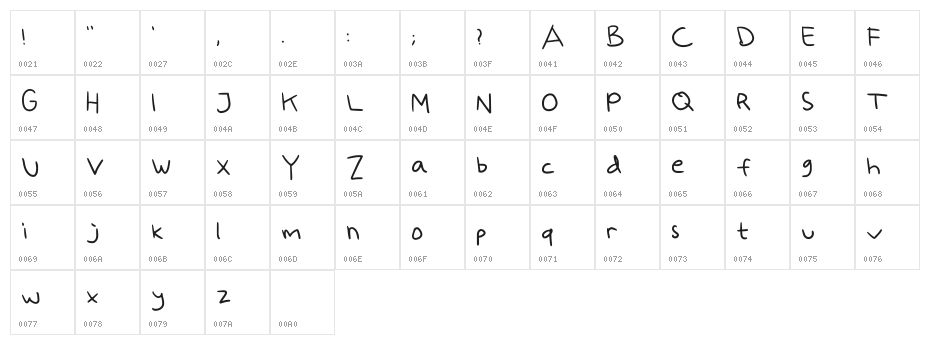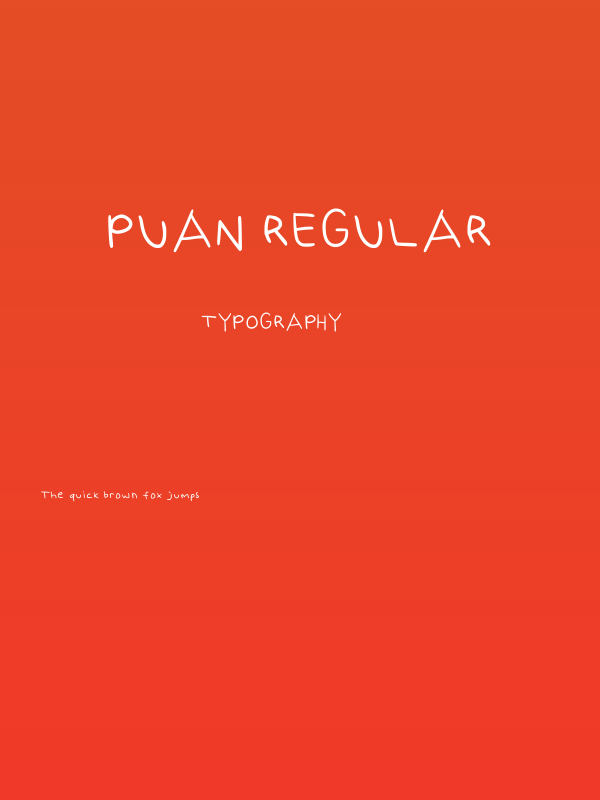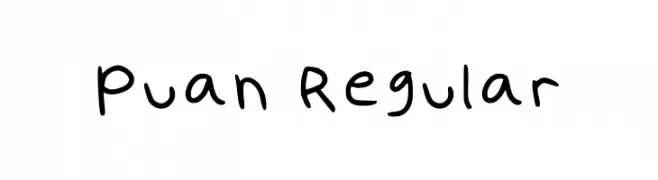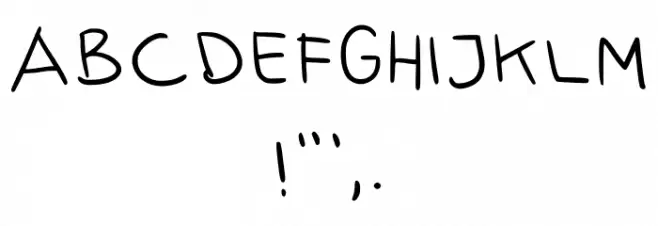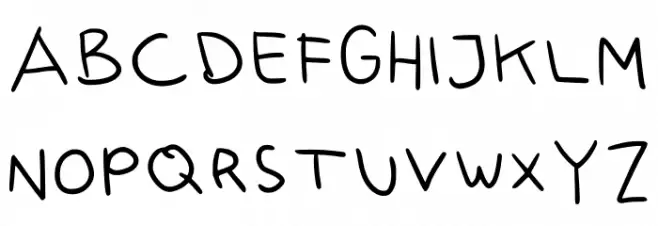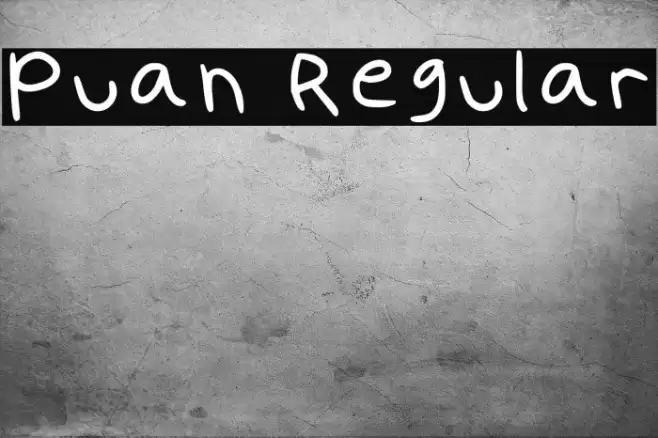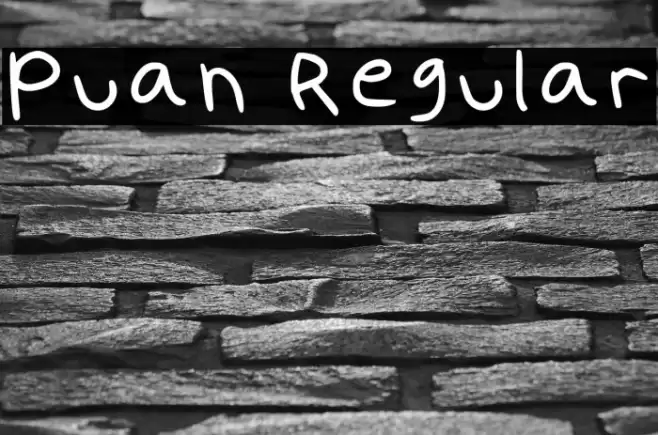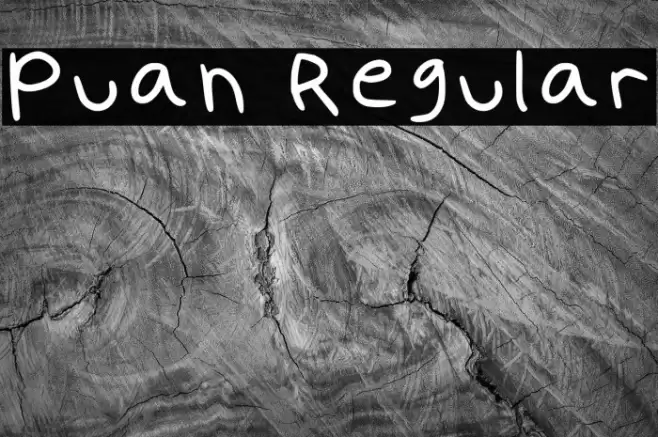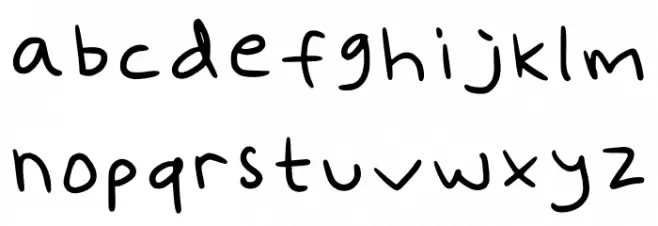
Puan Regular Font
Puan Regular Description
A playful, handwritten style font with irregular, casual letterforms that resemble a child's handwriting.
| Overall Style | Casual, Playful, Childlike |
| Use Case | Headlines, Body text, Logos, Children's materials |